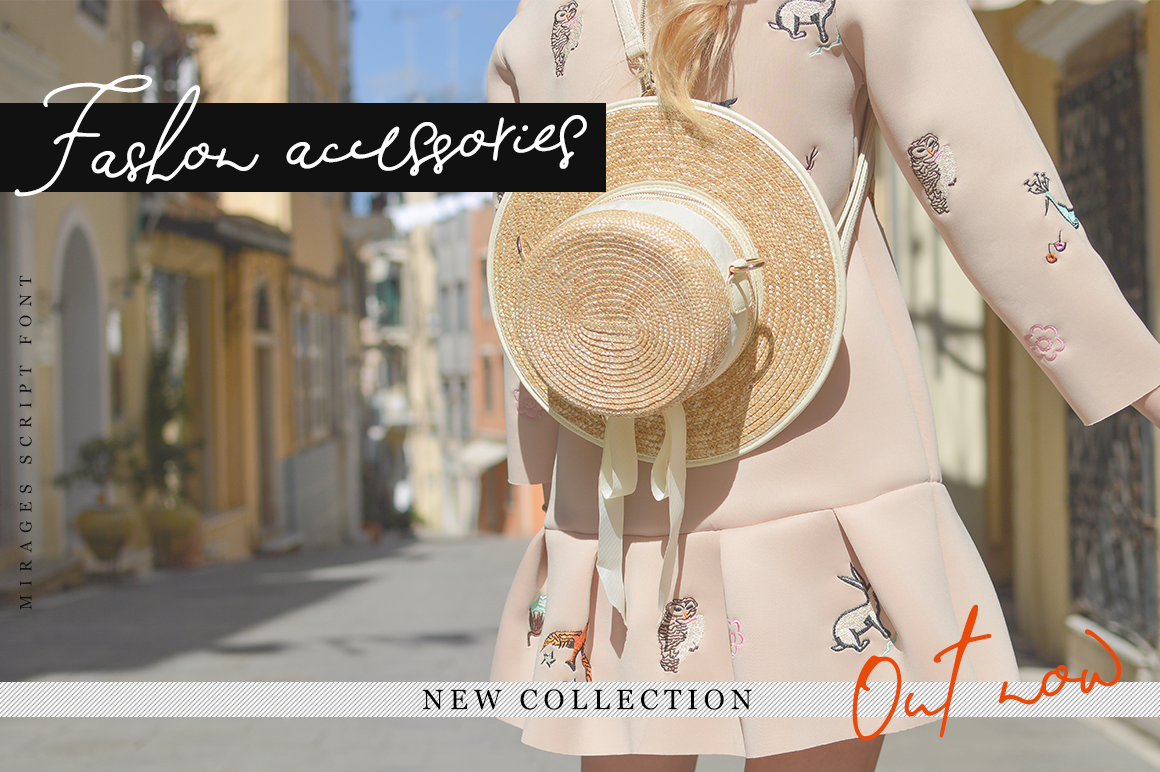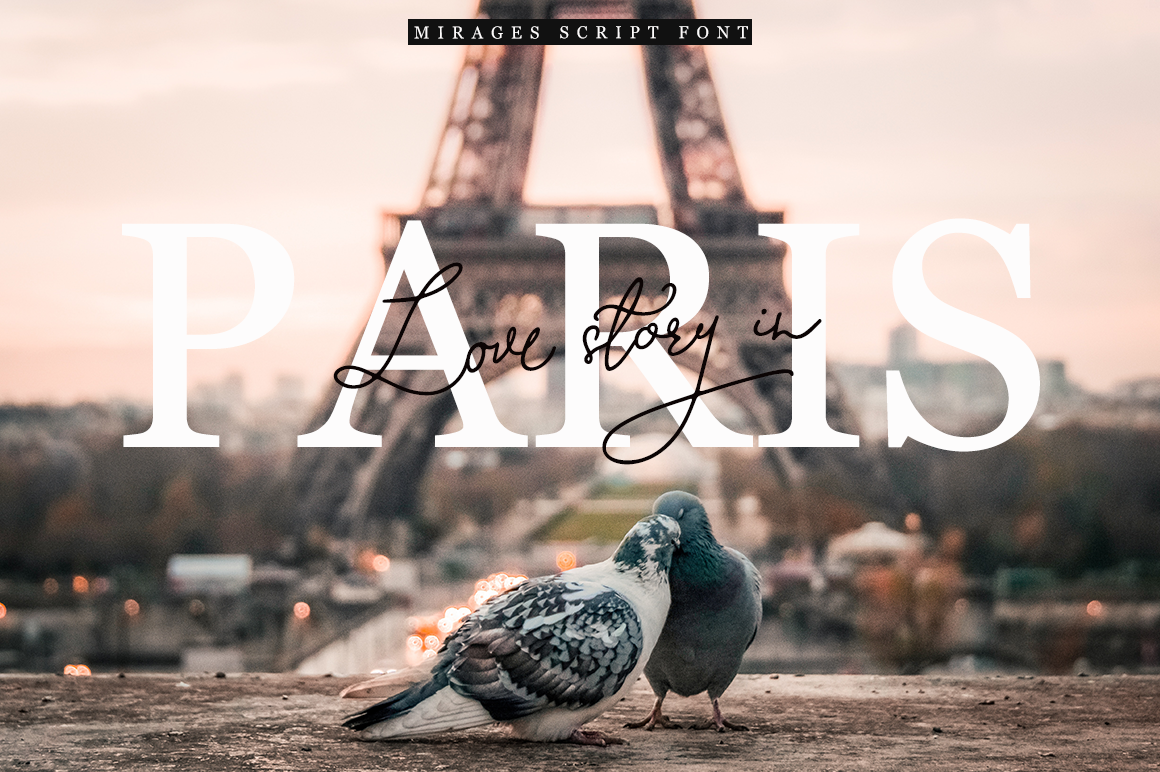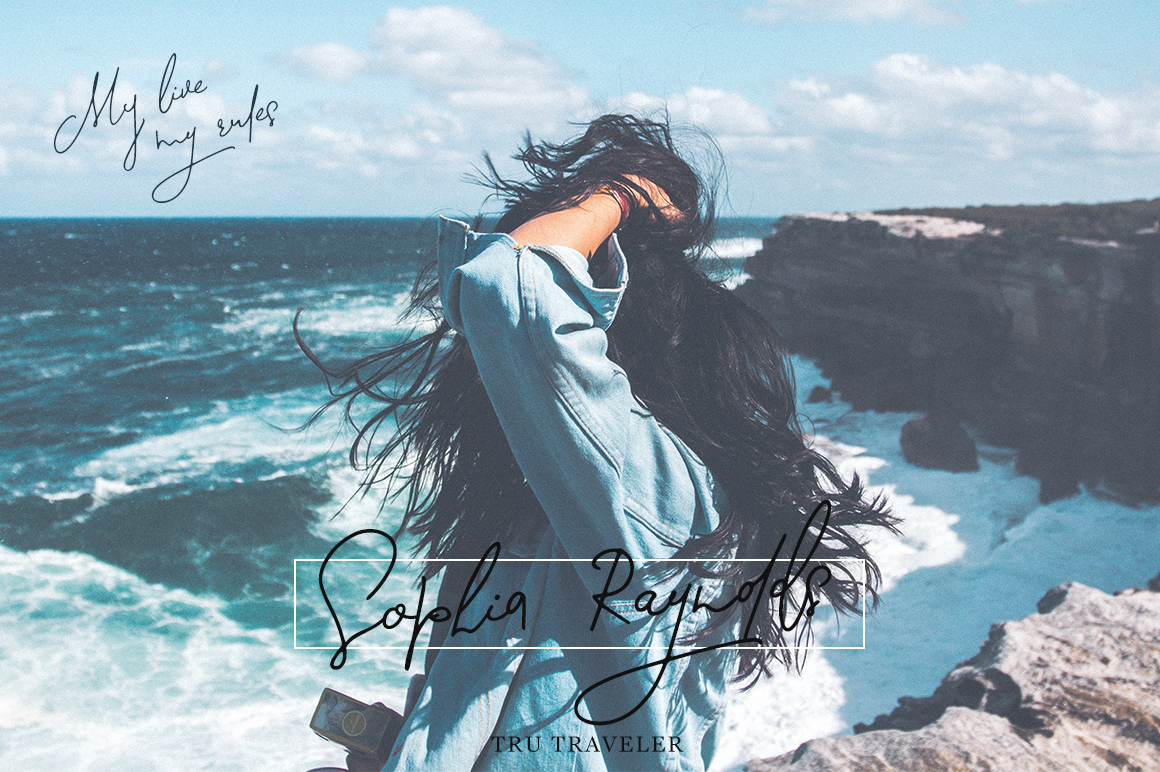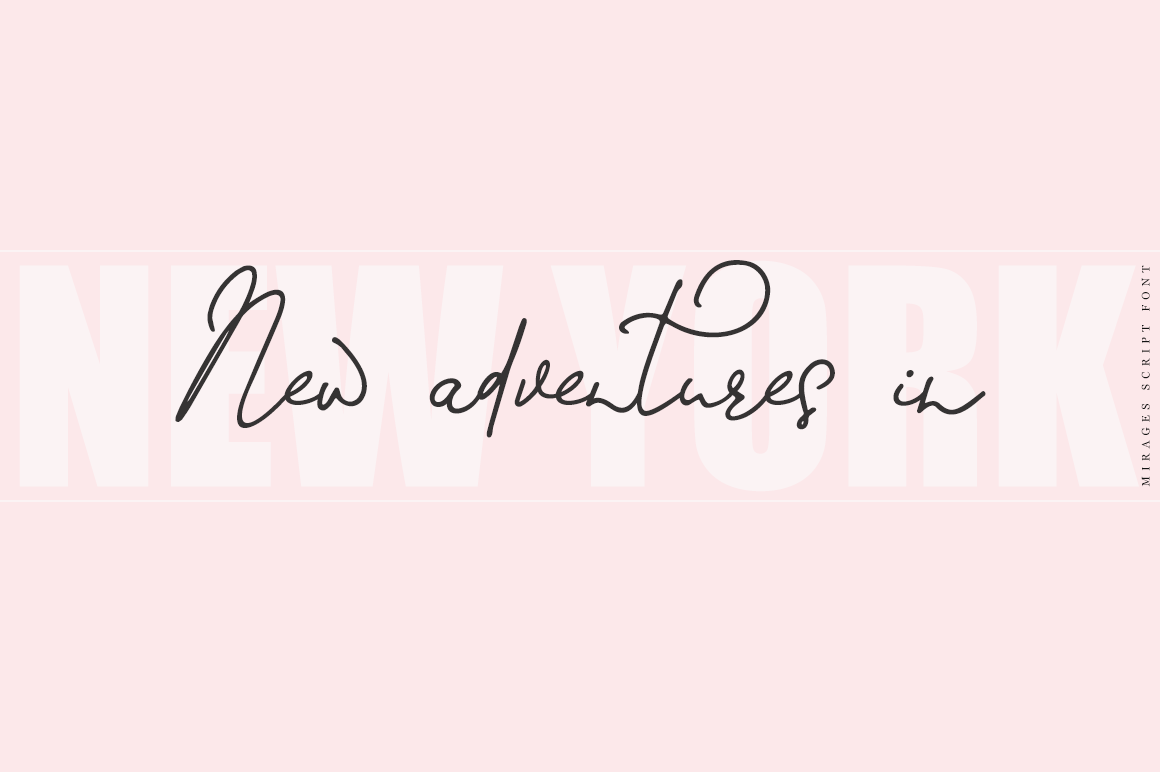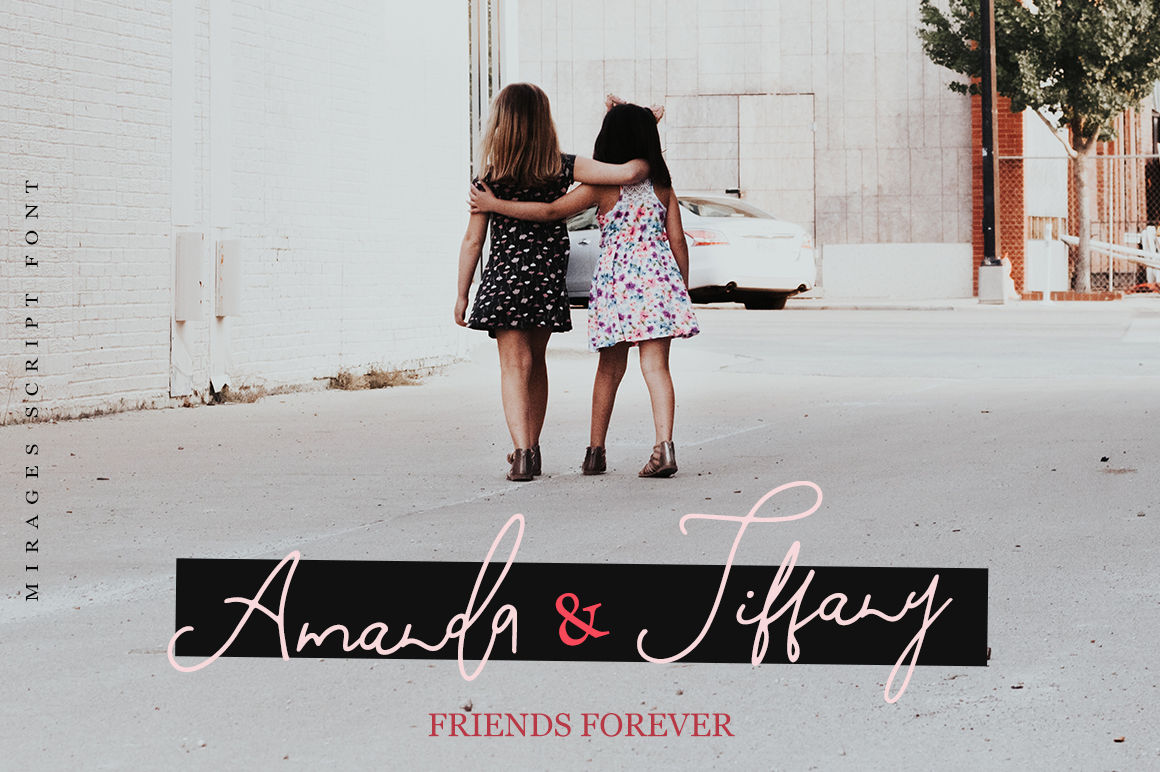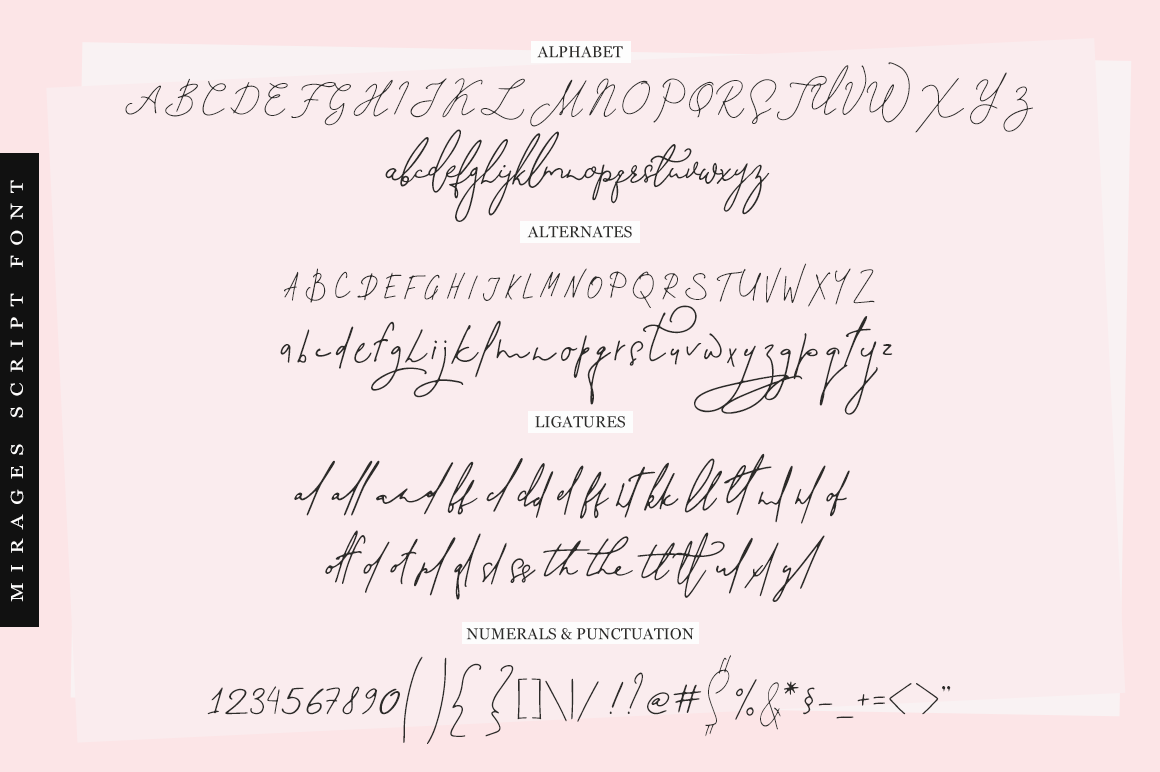
Introduction to Mirages Font
Have you ever been on a creative roll, pouring your heart and soul into a design project, only to be halted by the perfect font? For designers, finding the right typography can make all the difference in bringing a concept to life. One such game-changing font is Mirages Font, a stunning calligraphy script that has captured the hearts of many creatives.
Whether you’re working on a wedding invitation, a blog branding project, or any other creative endeavor, Mirages Font is an invaluable resource that can elevate your design to the next level. Its high quality, elegant design makes it a versatile choice for a wide range of projects, from print to digital.
Key Features of Mirages Font
- High-quality design resource for creative projects, ideal for graphic designers and artists.
- Features a unique, elegant design with a transparent background, allowing for seamless integration into various backgrounds and designs.
- Includes a range of characters, including uppercase and lowercase letters, numbers, and special characters, making it a comprehensive design resource.
Honest Review: Mirages Font
I recently stumbled upon the Mirages Font while searching for a high-quality design resource for a creative project. I must say, I was impressed by its unique style and versatility.
- The Mirages Font offers a range of styles and weights, making it perfect for designers who want to add some flair to their designs.
- The transparent background feature allows for seamless integration with any design element.
- The font’s modern and sleek design makes it perfect for any creative project, from branding to digital art.
- The font may not be suitable for projects that require a more traditional or conservative font style.
Overall, I’m impressed with the Mirages Font and would definitely recommend it to fellow designers. Its unique style and high quality make it a valuable addition to any design library. With its transparent background and free download, it’s a transparent and convenient choice for any creative project.
Tips for Getting the Most Out of Mirages Font
For the best results, use Mirages Font with a transparent background to create a seamless look. Experiment with different font sizes, colors, and styles to find the perfect combination for your project.
Mirages Font is perfect for any creative project, including logos, brochures, business cards, and social media graphics. Its unique design and high-quality features make it a great resource for designers and non-designers alike.